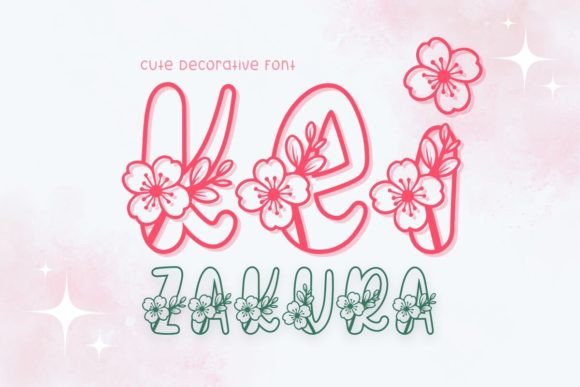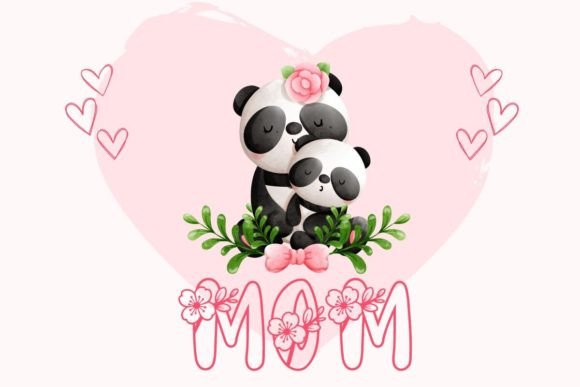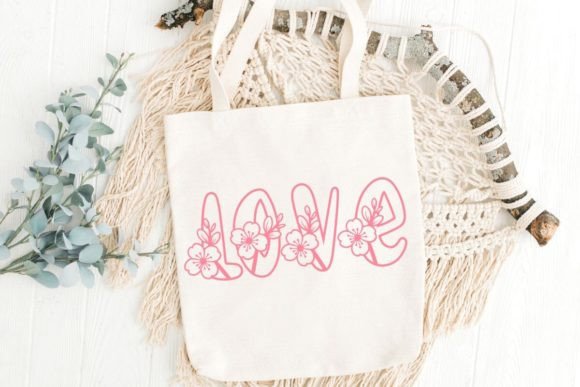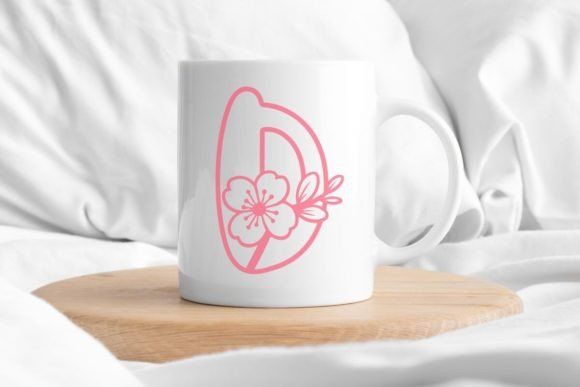
Kei Zakura Font: A Cute Decorative Font for Cricut & Printable Crafts
About the Kei Zakura Font
The Kei Zakura Font offers a perfect balance of form and function for your design needs. Kei Zakura is a lovely decorative font. This font uses cute flower elements silhouettes combined with an outline handwritten font. This font has a quirky style. Perfect for creating a wide variety of new designs to match products such as banners, content, mugs, cards, shirts, stationery, social media posts, and more!
Kei Zakura’s playful personality makes it ideal for branding projects targeting a young, feminine demographic, particularly in areas like stationery, social media graphics, and packaging for products such as cosmetics or confectionery. It excels in short headlines, logos, and short-form content where its decorative elements shine. However, its intricate details and quirky style make it unsuitable for body text or UI elements requiring high readability.
Pairing Kei Zakura with a clean sans-serif like Open Sans for body text would create a visually appealing contrast, balancing the decorative nature of Kei Zakura with a highly legible typeface. Alternatively, a delicate serif like Lora could add a touch of classic elegance, softening Kei Zakura’s quirkiness. Avoid pairing it with other highly decorative fonts, as this could lead to visual overload.
The font’s overall mood is cheerful and youthful, conveying a sense of fun and whimsy. It’s best suited for brands aiming for a lighthearted and approachable image.
Kei Zakura Font Usage Examples
Kei Zakura Font Example